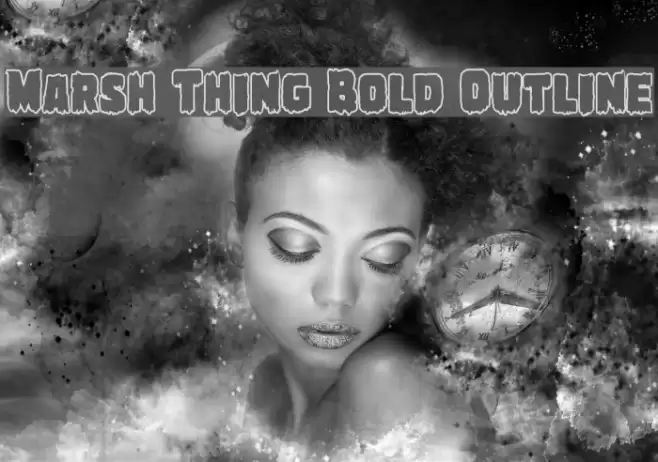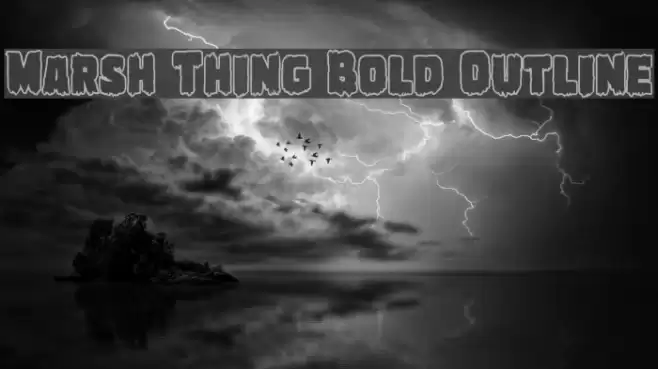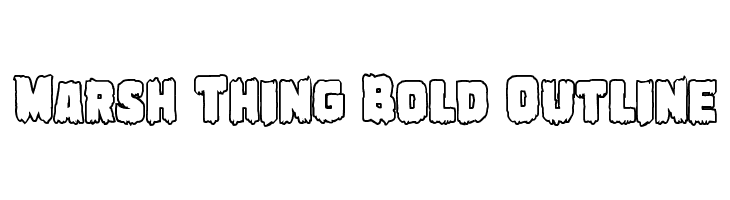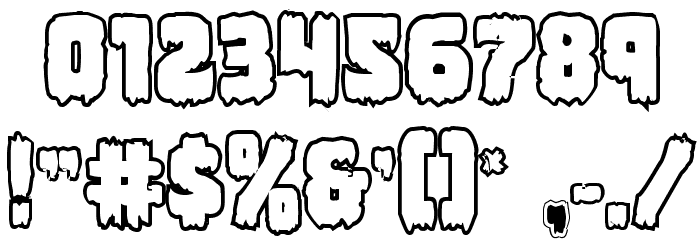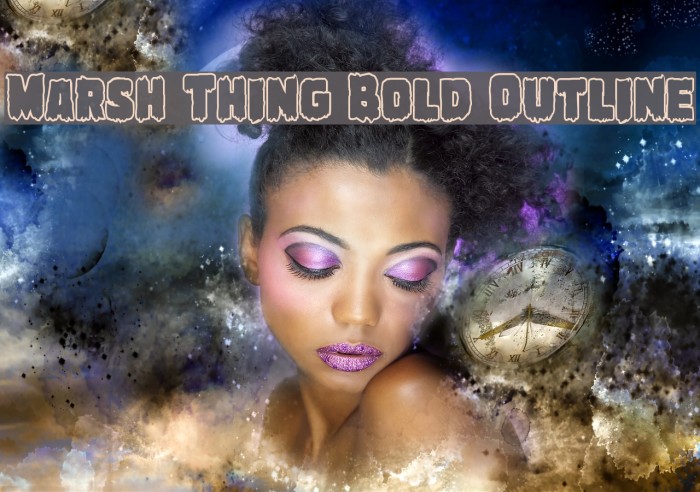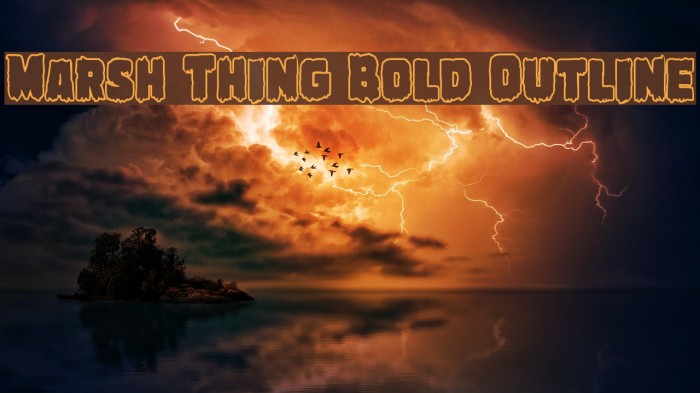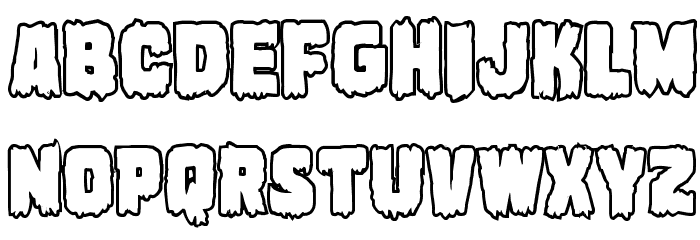
Marsh Thing Bold Outline Font
Marsh Thing Bold Outline Description
This font features a bold, playful outline style that resembles dripping or melting shapes, giving it a unique and eye-catching appearance. The characters are uppercase and lowercase letters, numbers, and a variety of special symbols. Each character is outlined, creating a hollow effect that adds to its decorative nature. The design is reminiscent of a spooky or Halloween theme, making it ideal for projects that require a touch of whimsy or eeriness. The font's boldness ensures it stands out, while the outline provides a distinct visual appeal.
A bold, playful outline font with a dripping, spooky style from Uncategorized fonts.
- Proposed Projects: Ideal for Halloween-themed designs, posters, party invitations, or any project needing a fun, eerie touch.